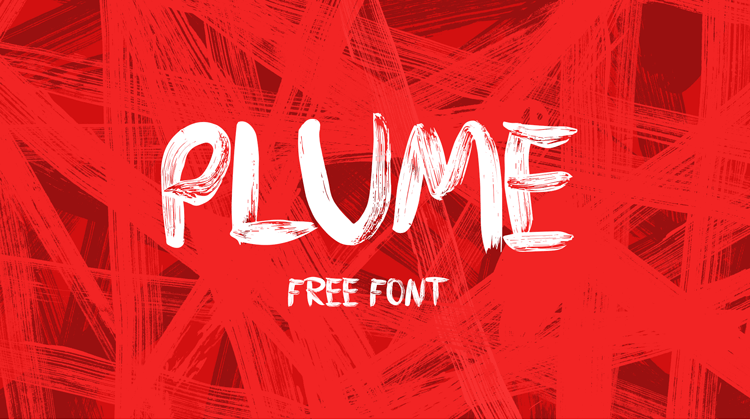
Plume - free brush font
PLUME comes with all the latin characters you need, all the letters numbers and symbols. Brushed on a plastic surface with a thick brush that leaves a unique splash on the lettering.
The font PLUME was made alongside my masters degree sketches abut the concept of connections. Connections that you notice and the other ones that you dont. Small things that define our world.